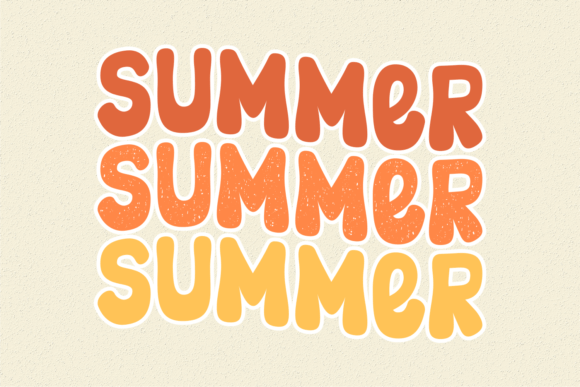
Introducing Thicky Retro Font: The Ultimate Display Font for Creative Projects
Are you looking for a font that can add a touch of playfulness and retro charm to your creative projects? Look no further than Thicky Retro Font! This versatile and eye-catching display font is perfect for a wide range of applications, from greeting cards and headlines to posters, flyers, and more. In this article, we’ll take a closer look at Thicky Retro Font and explore its features, benefits, and uses.
What Makes Thicky Retro Font So Special?
Thicky Retro Font is a unique and stylish display font that is sure to grab attention. Its retro charm and playful vibe make it perfect for projects that require a fun and lighthearted touch. Here are some of its key features:
- Retro-inspired design: Thicky Retro Font is inspired by the classic fonts of the past, with a modern twist. Its bold and chunky design makes it perfect for headlines, titles, and other display text.
- Versatile and flexible: This font is highly versatile and can be used for a wide range of projects, from digital designs to print materials.
- Easy to read: Despite its bold and chunky design, Thicky Retro Font is surprisingly easy to read, making it perfect for use in body text as well as headlines.
- High-quality design: Thicky Retro Font is designed with high-quality and precision, ensuring that it looks great in any size or resolution.
The Benefits of Using Thicky Retro Font
So why should you choose Thicky Retro Font for your projects? Here are just a few benefits of using this amazing display font:
- Adds a touch of personality: Thicky Retro Font adds a unique and playful touch to your projects, setting them apart from the crowd.
- Perfect for creative projects: This font is ideal for creative projects such as posters, flyers, brochures, and more.
- Great for headlines and titles: Thicky Retro Font is perfect for use in headlines and titles, where its bold and chunky design can really make an impact.
What Can You Use Thicky Retro Font For?
Thicky Retro Font is a versatile display font that can be used for a wide range of projects. Here are some ideas to get you started:
- Greeting cards: Add a touch of playfulness and personality to your greeting cards with Thicky Retro Font.
- Headlines and titles: Use this font to create bold and eye-catching headlines and titles for your posters, flyers, and brochures.
- Posters and flyers: Thicky Retro Font is perfect for use in posters and flyers, where its bold and chunky design can really make an impact.
- Logos and branding: This font can also be used to create unique and memorable logos and branding materials.
- Digital designs: Thicky Retro Font can be used for digital designs such as social media graphics, email newsletters, and more.
Tips and Tricks for Using Thicky Retro Font
Here are some tips and tricks for getting the most out of Thicky Retro Font:
- Use it sparingly: While Thicky Retro Font is a great display font, it can be overwhelming if used too much. Use it sparingly to create impact and add personality to your projects.
- Experiment with colors: Thicky Retro Font looks great in a range of colors, so don’t be afraid to experiment and find the perfect color scheme for your project.
- Pair it with other fonts: This font pairs well with a range of other fonts, so try pairing it with a sans-serif font for a bold and modern look.
- Adjust the size and scale: Thicky Retro Font can be used in a range of sizes and scales, so don’t be afraid to experiment and find the perfect size for your project.
In conclusion, Thicky Retro Font is a versatile, playful, and retro display font that is perfect for a wide range of creative projects. Its bold and chunky design makes it perfect for headlines, titles, and other display text, while its easy-to-read design makes it suitable for use in body text as well. With its high-quality design and precision, Thicky Retro Font is sure to add a touch of personality and playfulness to your projects.